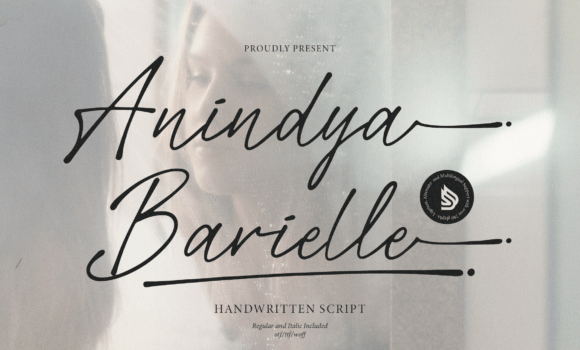
Anindya Barielle Font – Free Download Introduction to Anindya Barielle Font Anindya Barielle is a handwritten script font that features smooth, flowing letters with a casual and friendly style. 📸 Preview Gallery 6 images 📌 Product Name Anindya Barielle Font